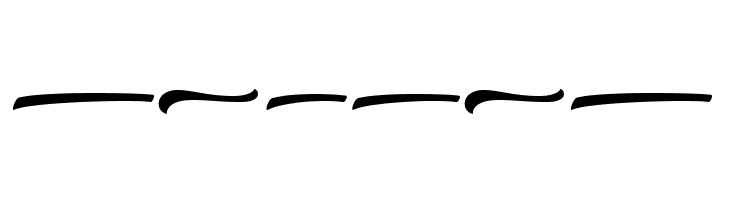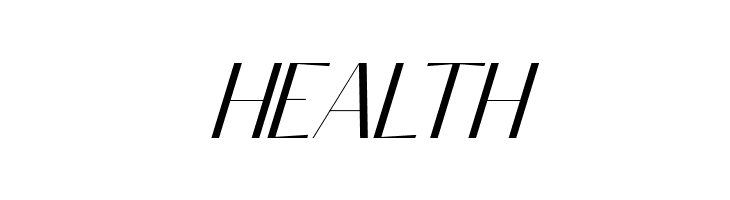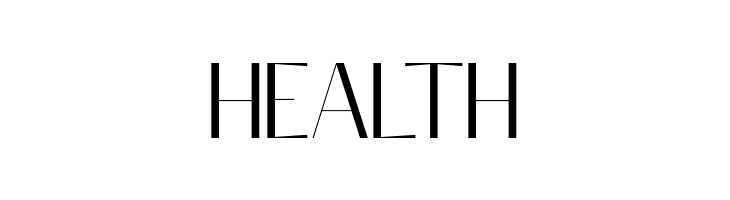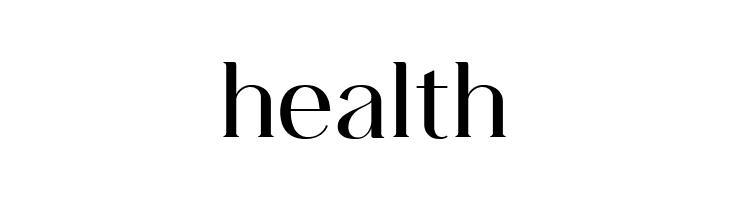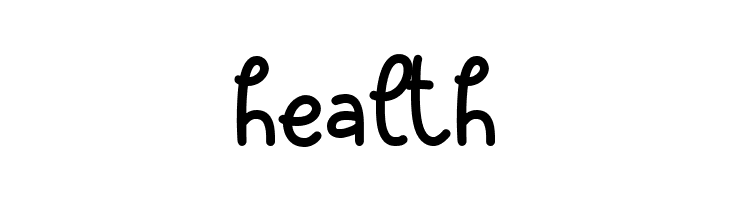
A dynamic and elegant script font with flowing, cursive letterforms.
A playful, handwritten font with smooth, flowing lines and a casual style.
An ornate and decorative font with a medieval, gothic style.
A whimsical, hand-drawn font with playful, irregular shapes and dynamic strokes.
A whimsical and decorative font with ornate, curvy characters.
An ornate and decorative font with intricate flourishes and circular frames.
An elegant and decorative script font with ornate loops and swirls.
A playful, bold handwritten font with rounded, irregular letterforms.
A playful, hand-drawn font with letters in circular shapes, perfect for creative projects.
A graceful cursive font with an elegant, handwritten style.
A playful, handwritten font with a whimsical and friendly style.
A lively and expressive handwritten font with fluid, dynamic strokes.
Handwritten, playful sans-serif with tall, narrow letters.
A modern, elegant script font with flowing, cursive letters and graceful curves.
A whimsical, cursive font with elegant loops and swirls.
An elegant script font with intricate loops and swirls, reminiscent of calligraphic handwriting.
A flowing, cursive script font with elegant loops and swashes.
A bold, hand-drawn font with playful curves and dynamic slant.
An elegant, cursive font with a handwritten style and smooth, flowing curves.
A playful, modern handwritten font with medium contrast and dynamic slant.
Playful handwritten font.
An elegant cursive font with graceful curves and artistic flourishes.
A bold, decorative font with geometric precision and filled patterns.
A bold, geometric font with a gradient effect, perfect for modern designs.
A bold, geometric font with a gradient effect and modern design.
A playful, casual handwritten font with smooth, flowing lines.
A graceful, italic script font with flowing, connected characters.
A bold, playful handwritten font with thick, rounded strokes.
An elegant script font with flowing, cursive lines and decorative swirls.
An elegant serif typeface with high contrast and refined, elongated strokes.
A sleek, modern font with clean lines and subtle contrast, perfect for contemporary designs.
A dynamic, fluid script font with elegant, flowing lines and cursive letterforms.